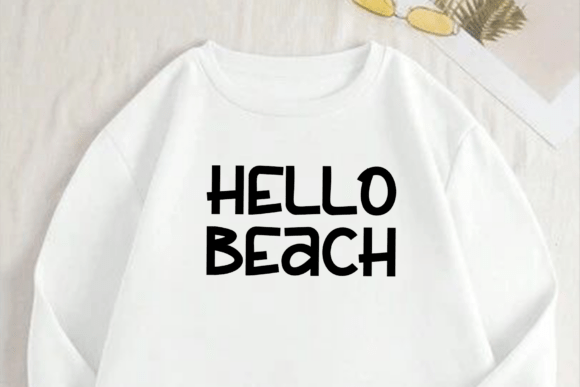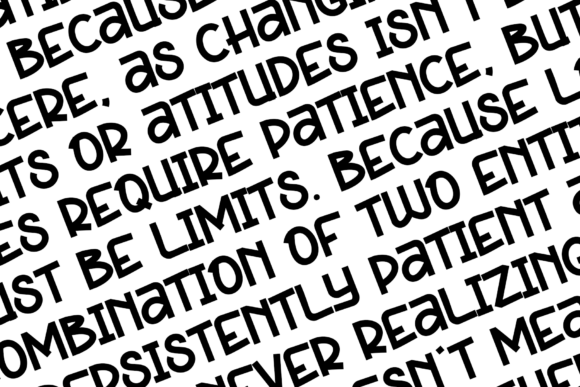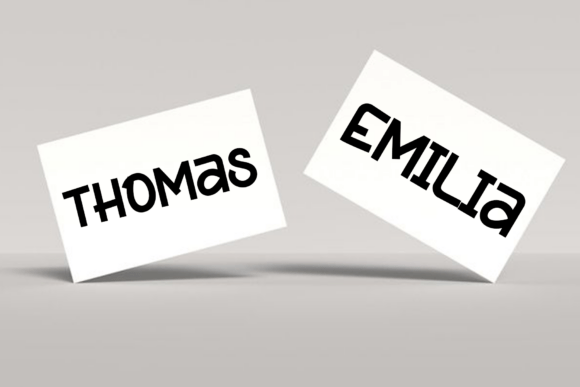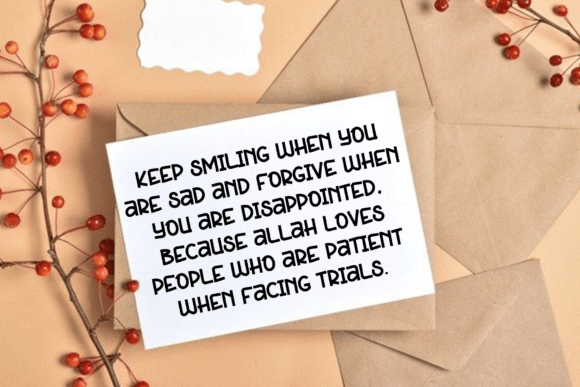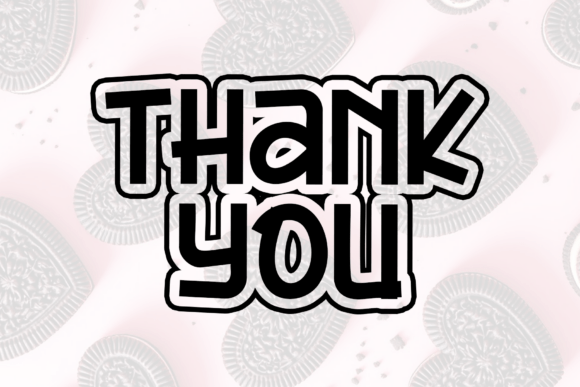
Candy Stories Font: Elevate Your Designs with Elegance and Sophistication
In the world of typography, fonts play a crucial role in conveying the tone and personality of a brand or design. For designers and crafters looking for a typeface that exudes elegance, sophistication, and a touch of femininity, Candy Stories Font is an excellent choice. This modern display font has been gaining popularity for its smooth, elegant lines and versatile design, making it perfect for a wide range of applications.
The Characteristics of Candy Stories Font
Candy Stories Font is described as a smooth and elegant modern display font that strikes a perfect balance between legibility and a stylish, personal flair. Its consistent, fluid strokes and slightly condensed form create a graceful, feminine look that is both unique and professional. The font’s design is characterized by:
- Smooth and fluid strokes: The font features smooth, flowing lines that give it a sophisticated and elegant appearance.
- Slightly condensed form: The font’s condensed form makes it perfect for designs where space is limited, without compromising on legibility.
- Feminine and elegant look: The font’s design is characterized by a feminine and elegant look, making it perfect for designs that require a touch of sophistication.
Uses of Candy Stories Font
Candy Stories Font is a versatile typeface that can be used in a variety of design applications, including:
- Sophisticated personal branding: The font is perfect for creating a professional and elegant brand identity.
- Chic social media graphics: The font’s modern and stylish design makes it perfect for creating eye-catching social media graphics.
- Custom stationery: The font’s elegant design makes it perfect for creating custom stationery, such as business cards, letterheads, and invoices.
- Contemporary signature style: The font’s smooth and flowing lines make it perfect for creating a contemporary signature style for designers, artists, and crafters.
Why Choose Candy Stories Font?
There are several reasons why designers and crafters should consider choosing Candy Stories Font for their designs:
- Unique and professional design: The font’s unique and professional design sets it apart from other typefaces.
- Legible and stylish: The font’s design balances legibility with a stylish, personal flair, making it perfect for a wide range of applications.
- Versatile: The font can be used in a variety of design applications, from personal branding to social media graphics.
- Elegant and sophisticated: The font’s elegant and sophisticated design makes it perfect for designs that require a touch of luxury and refinement.
Tips for Using Candy Stories Font
Here are some tips for using Candy Stories Font in your designs:
- Use it for headlines and titles: The font’s elegant design makes it perfect for headlines and titles.
- Pair it with other fonts: The font can be paired with other fonts to create a unique and stylish design.
- Experiment with different colors: The font’s design looks great in a variety of colors, from bold and bright to soft and pastel.
- Use it for branding and identity: The font’s professional and elegant design makes it perfect for branding and identity designs.
In conclusion, Candy Stories Font is a beautiful and versatile typeface that is perfect for designers and crafters looking for a stylish and elegant font for their designs. Its smooth and fluid strokes, slightly condensed form, and feminine and elegant look make it a great choice for a wide range of applications. Whether you’re looking to create a sophisticated personal brand, chic social media graphics, or custom stationery, Candy Stories Font is an excellent choice.